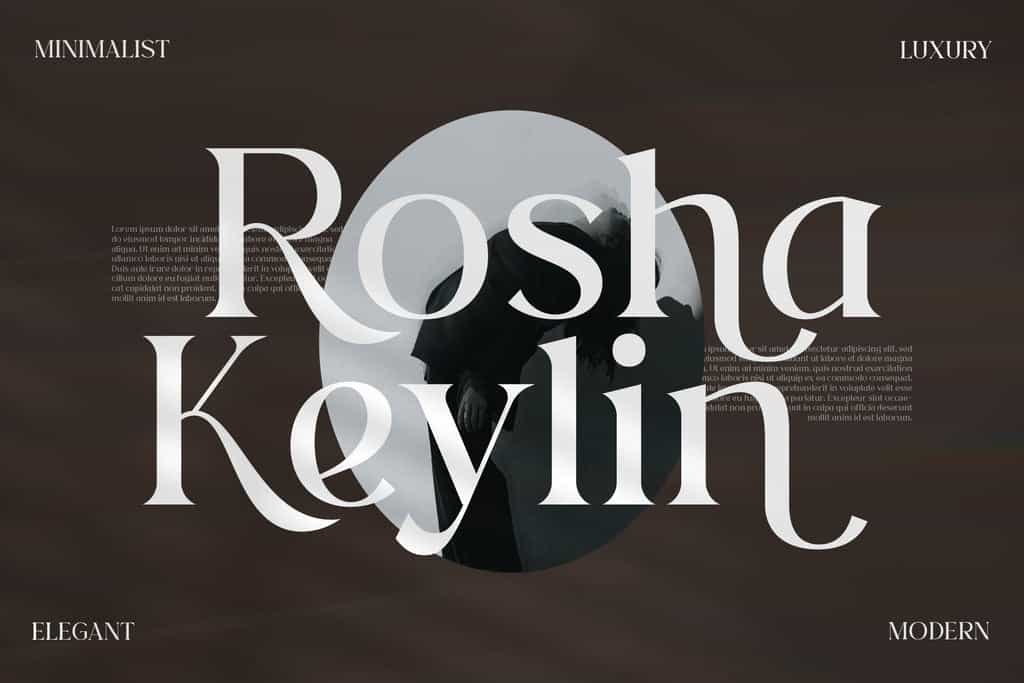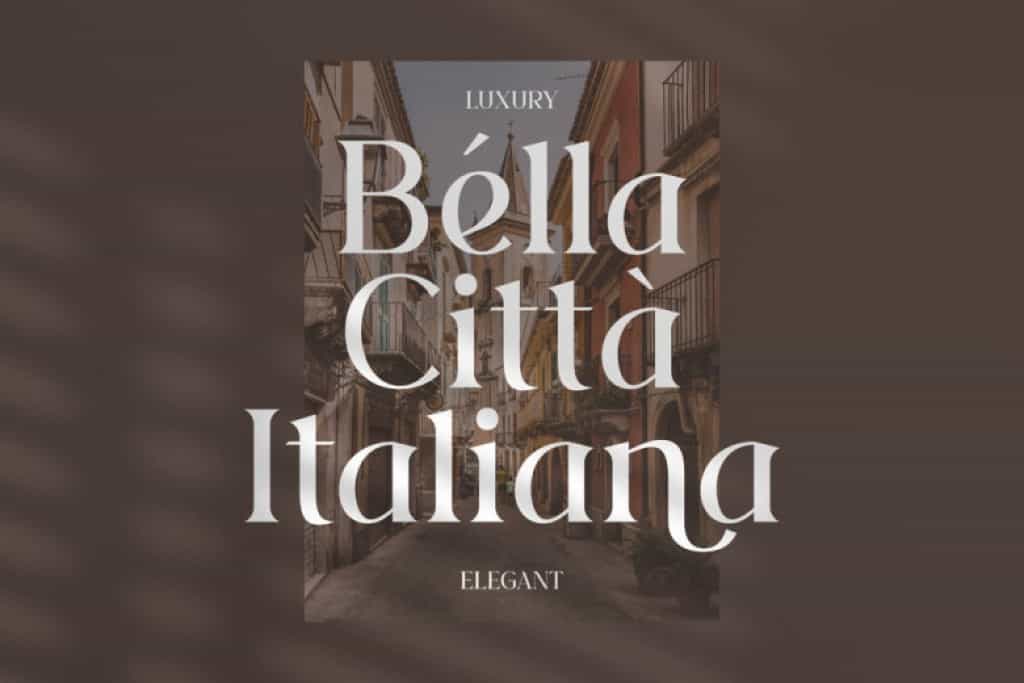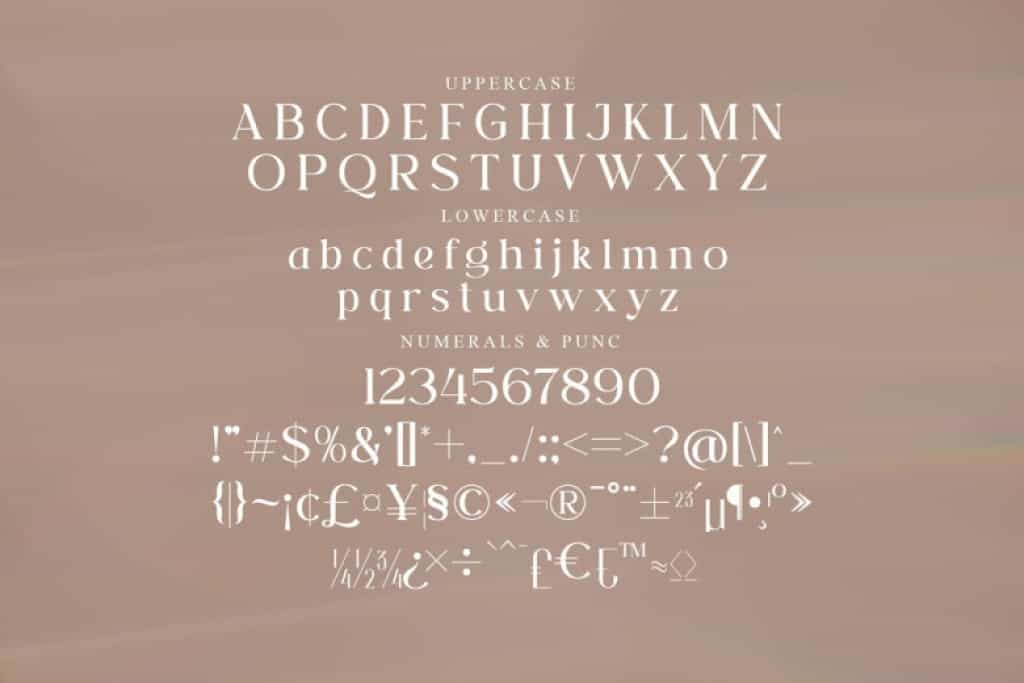
Rosha Keylin Serif font by Storytype is an exquisite modern serif and classic font, distinguished by its distinct style and contemporary look. Perfect for creating stylish logos, movie or book titles, fashion brand magazines clothing lettering quotes etc – don’t hesitate to show it off today.